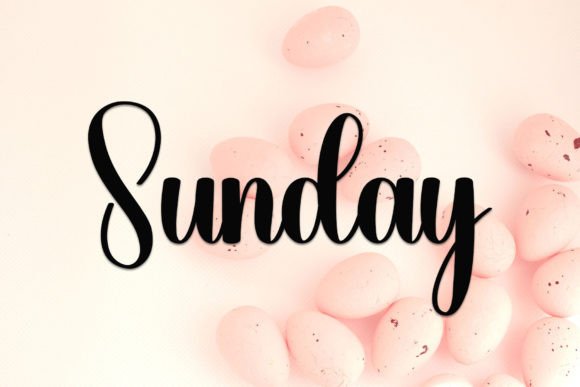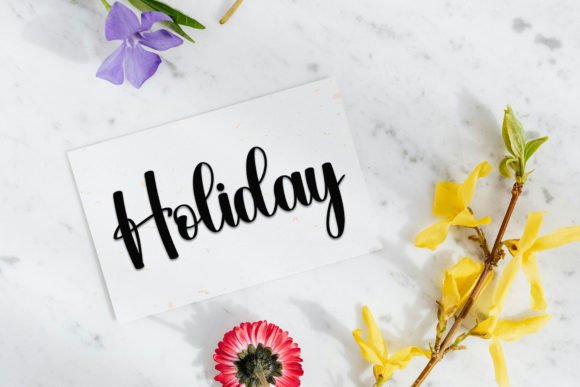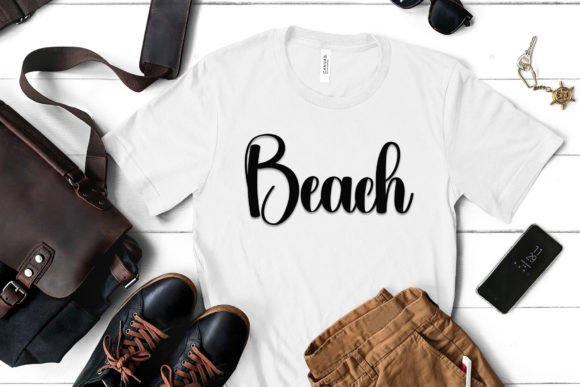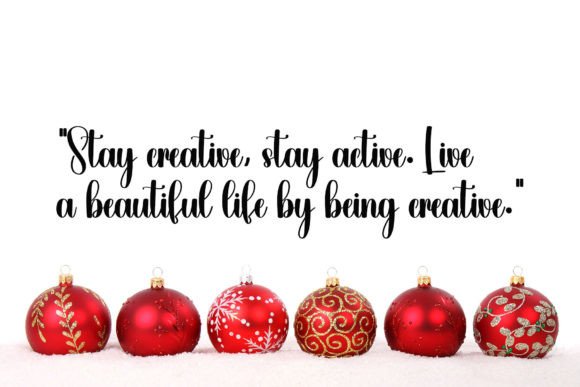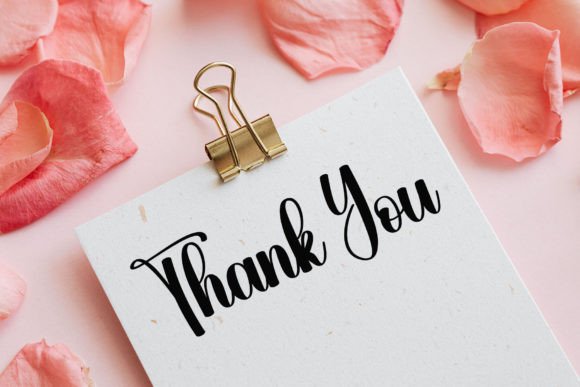
Deck the Halls with Typography: Introducing Charming Alpabet Font
As you sit down to craft the perfect holiday card, the lights twinkling around you, and the sound of jingling bells in the distance, you feel a rush of creative energy. It’s moments like these that remind you why you love being a designer – the chance to infuse your work with personality, whimsy, and a dash of magic. And that’s exactly what the Charming Alpabet Font is designed to do.
This festive typeface is the perfect companion for your holiday projects, adding a touch of charm and nostalgia to your designs. Whether you’re creating greeting cards, gift labels, or any other holiday-themed project, the Charming Alpabet Font brings a cheerful and unique atmosphere to your words. With its decorative elements and PUA coding, this font is a valuable addition to any designer’s toolkit.
Key Features of Charming Alphabet Font
- Unique Characteristics: The Charming Alphabet Font features a unique, whimsical design with intricate details and ornate flourishes, making it perfect for creative and artistic projects.
Designer Review: Charming Alphabet Font
Overall, I think the Charming Alphabet Font is a lovely addition to any designer’s toolkit. It’s got a certain whimsical charm that’s perfect for projects that need a touch of personality.
- ✨ The font’s unique, hand-drawn feel is instantly recognizable and adds a human touch to any design.
- ✨ The font is highly customizable, with a range of weights and styles to choose from.
- ✨ The font is optimized for web use, making it a great choice for digital projects.
- ⚠️ The font’s irregularities can sometimes make it difficult to read, particularly in smaller sizes.
- ⚠️ The font may not be suitable for projects that require a more formal or corporate tone.
- ⚠️ The font’s customizability can also make it overwhelming to choose the right style for a particular project.
Overall, I think the Charming Alphabet Font is a great choice for designers who want to add a touch of personality to their projects. While it may not be suitable for every project, it’s a great addition to any designer’s toolkit.
Use the Charming Alphabet Font to add a whimsical touch to your designs, especially for children’s products, nursery decor, or educational materials. Experiment with different font sizes and colors to create visual interest. Consider pairing the font with other playful fonts or graphics for a cohesive look.
The Charming Alphabet Font is ideal for:
– Children’s book titles and illustrations
– Nursery decor and wall art
– Educational materials and worksheets
– Party invitations and decorations
– Personalized gifts and stationery